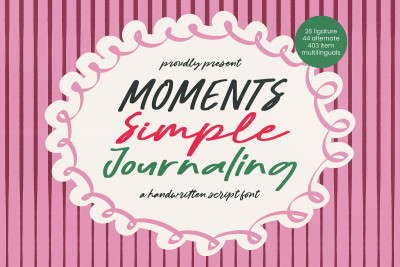
Moments Simple Journaling Script Font
Moments Simple Journaling Script offers a fresh typographic approach that balances visual appeal with exceptional legibility.